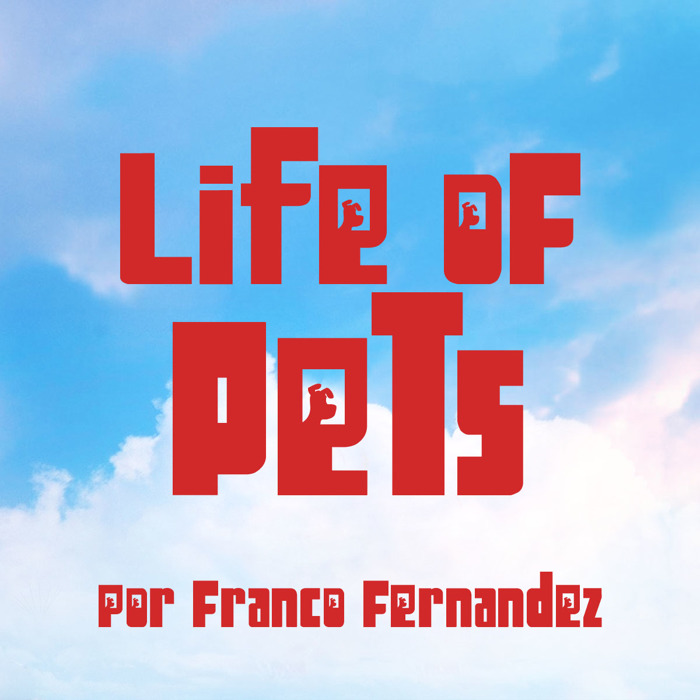
Life of Pets Font
Tipografía de la película LA VIDA SECRETA DE LAS MASCOTAS
Movie Font of LIFE OF PETS
This looks like the font from "The Life of Pets" Movie.